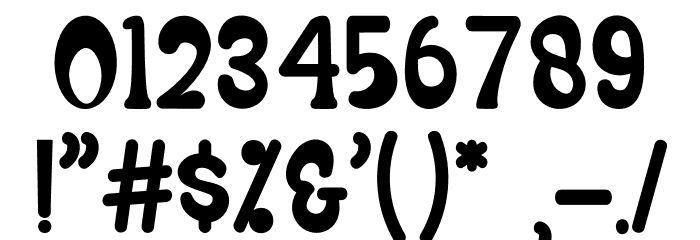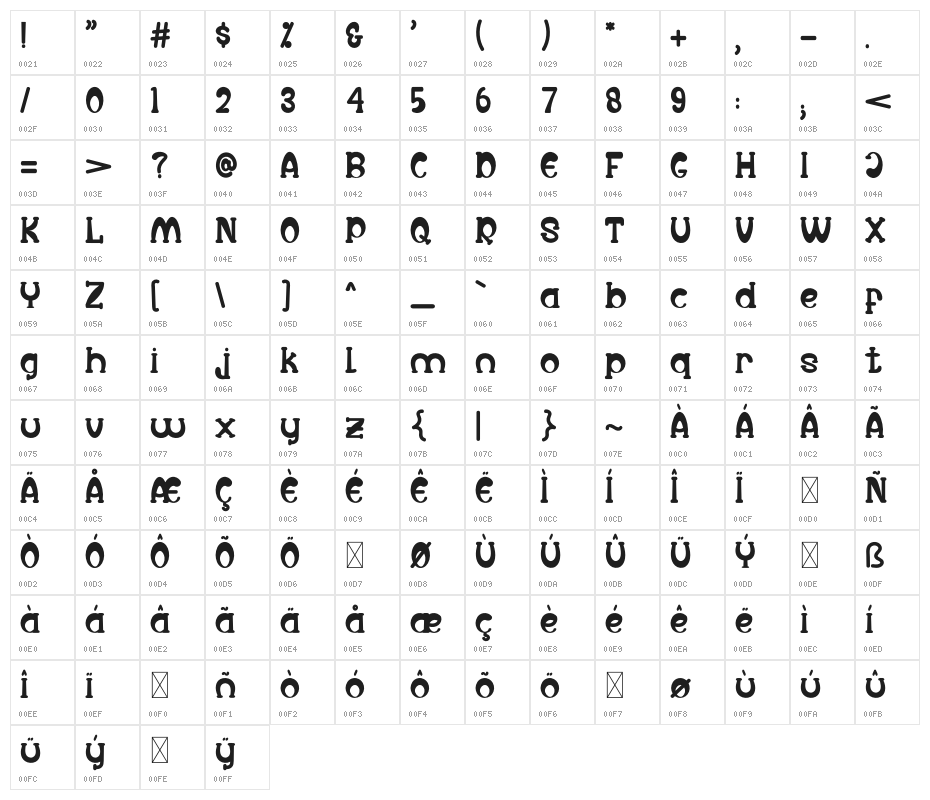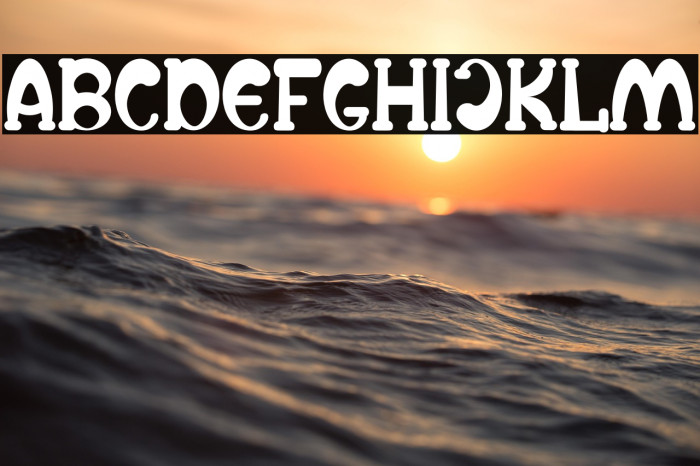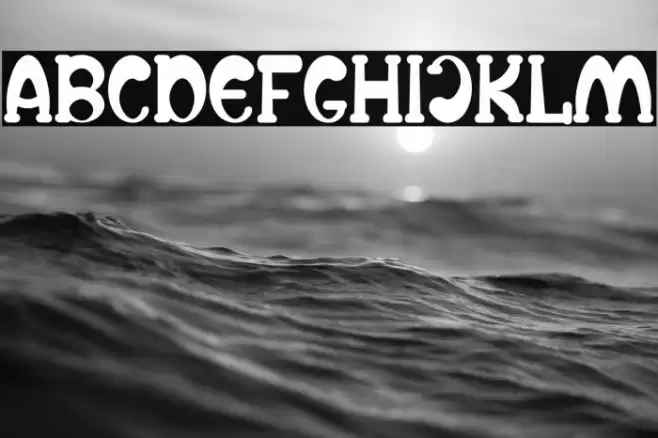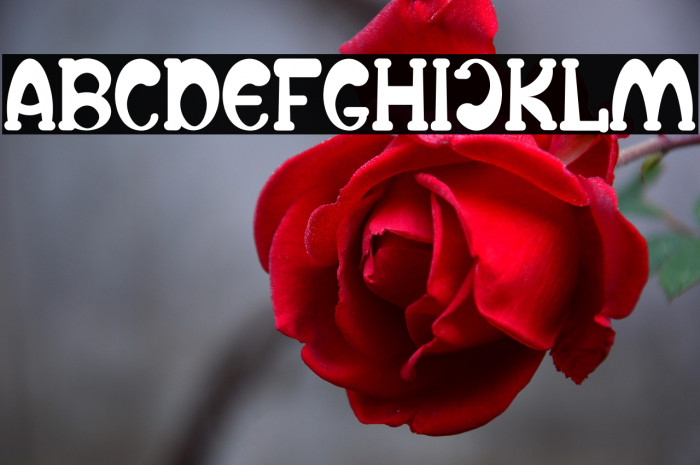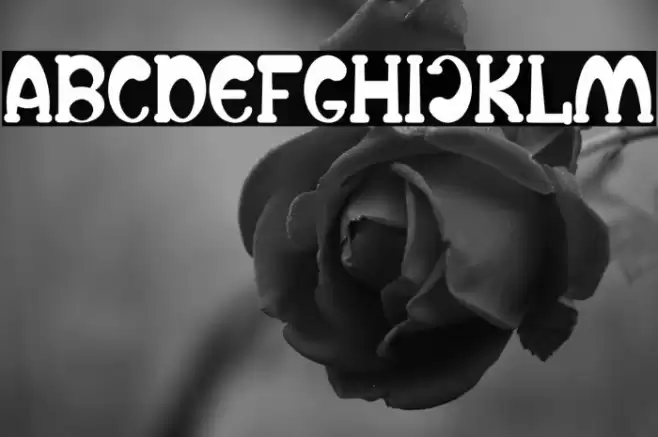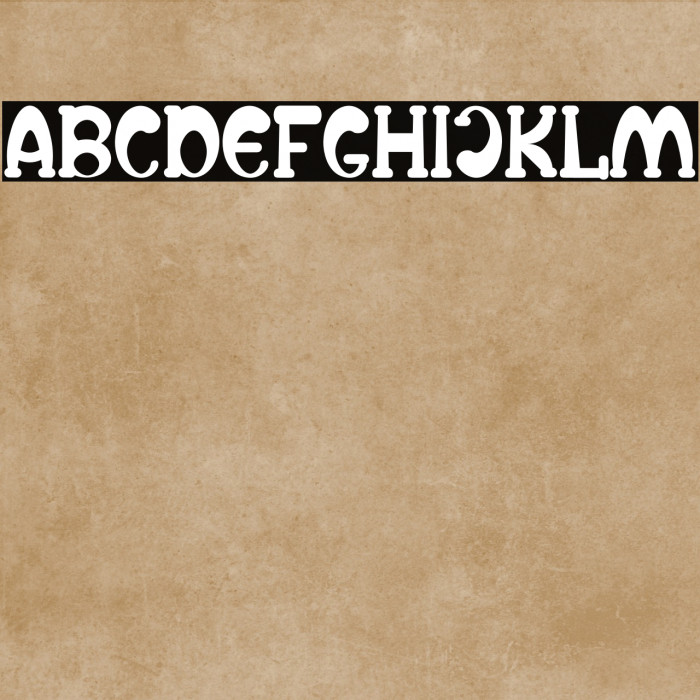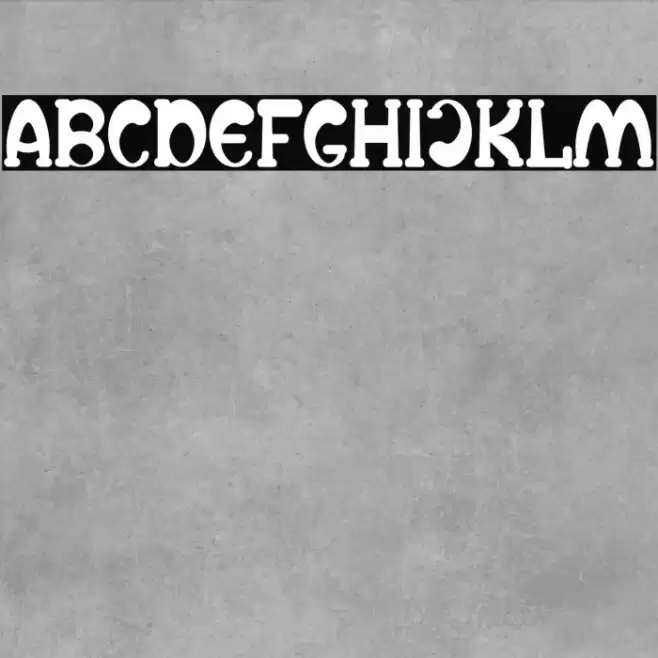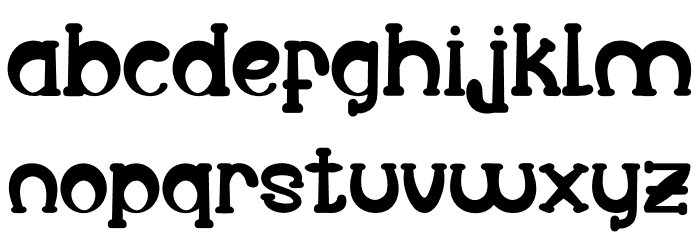
RUNAWAY Font
RUNAWAY Description
This font features a playful and bold design with rounded edges and a slightly whimsical feel. The characters are thick and have a consistent weight throughout, giving them a strong presence. The uppercase letters are particularly eye-catching with their unique curves and loops, while the lowercase letters maintain a similar style with a touch of quirkiness. The numerals and special characters follow the same bold and rounded aesthetic, making them stand out. Overall, this font exudes a fun and lively vibe, perfect for creative and informal projects.
Overall StylePlayful, Fun, Whimsical
Proposed ProjectsIdeal for children's books, playful branding, party invitations, and creative posters.